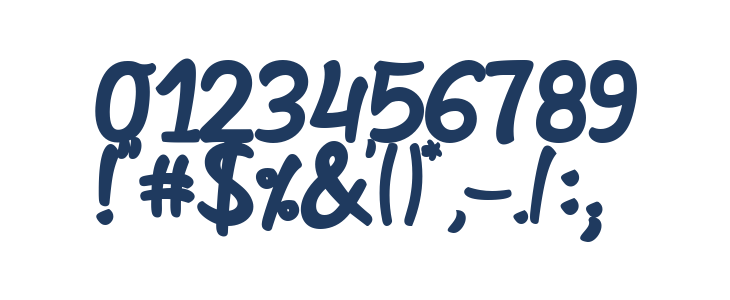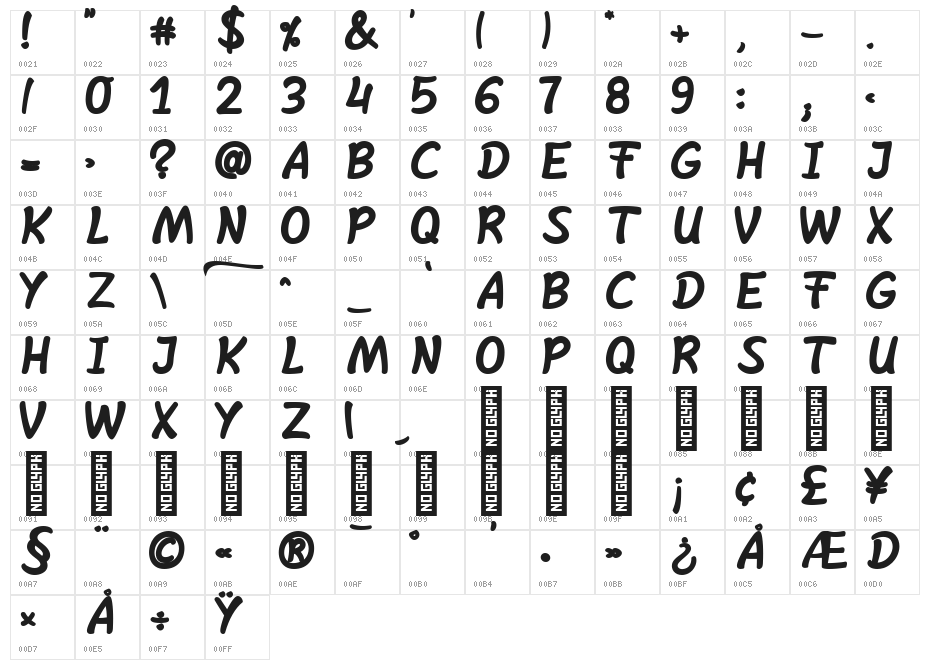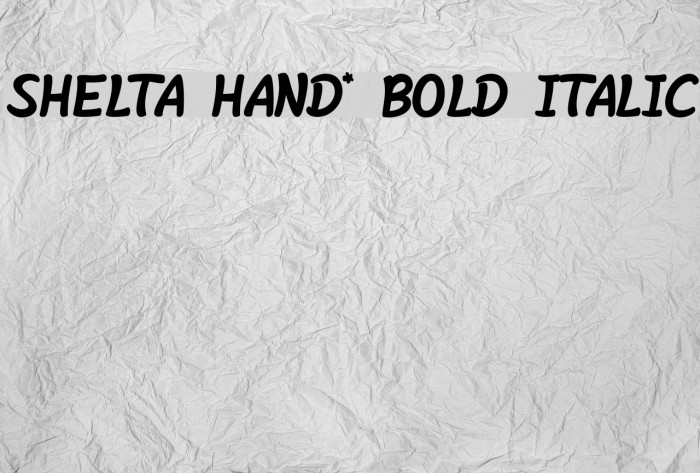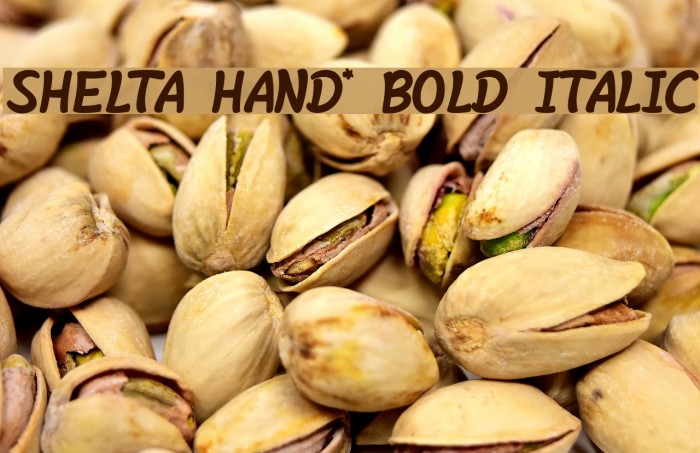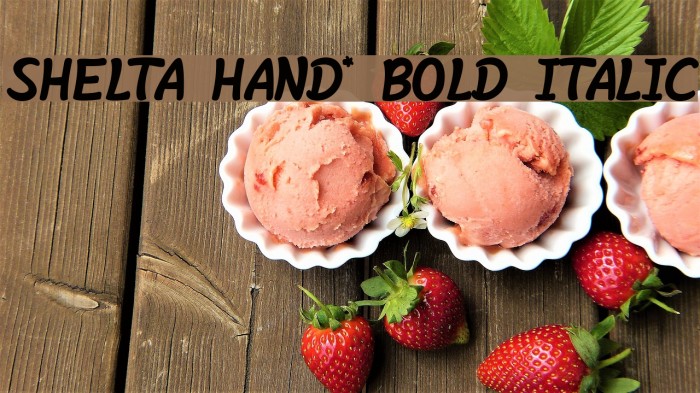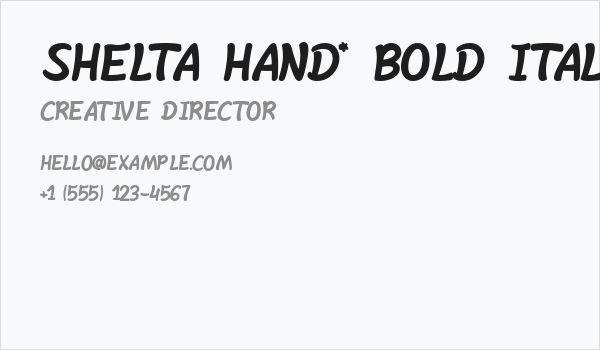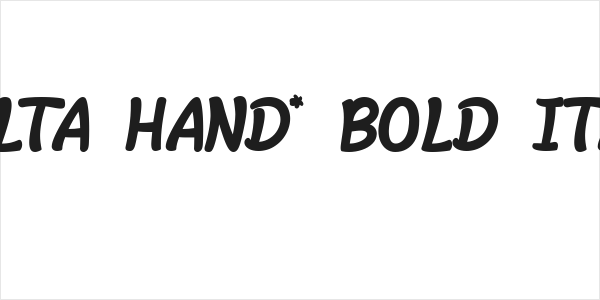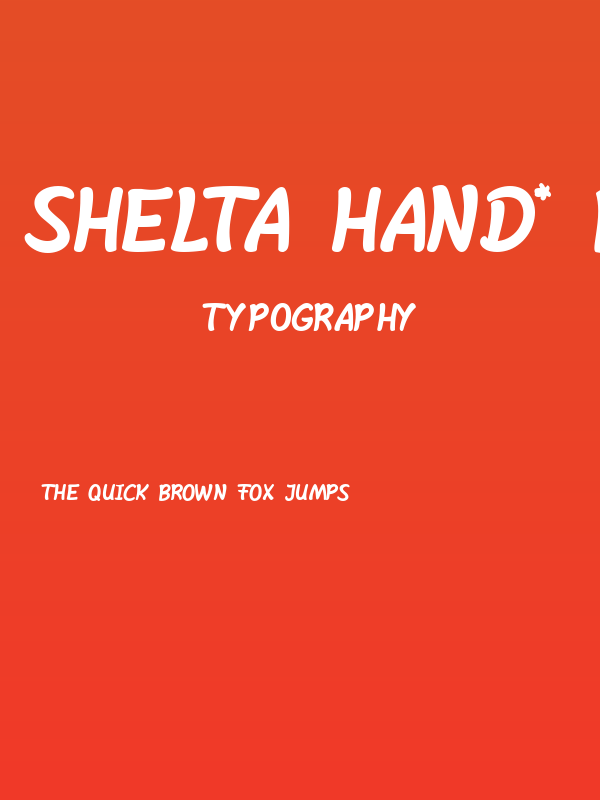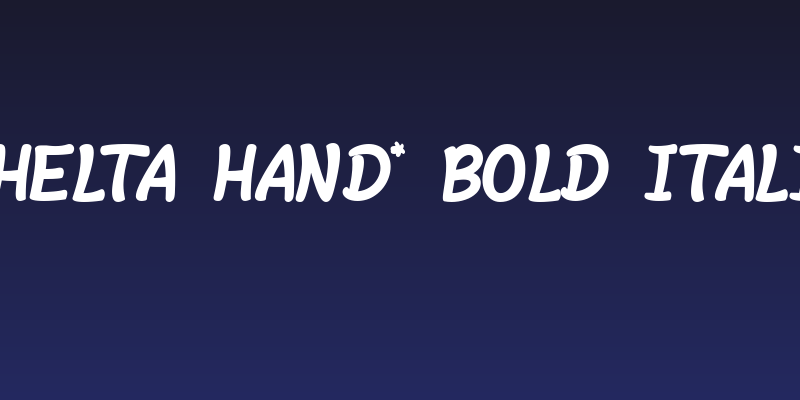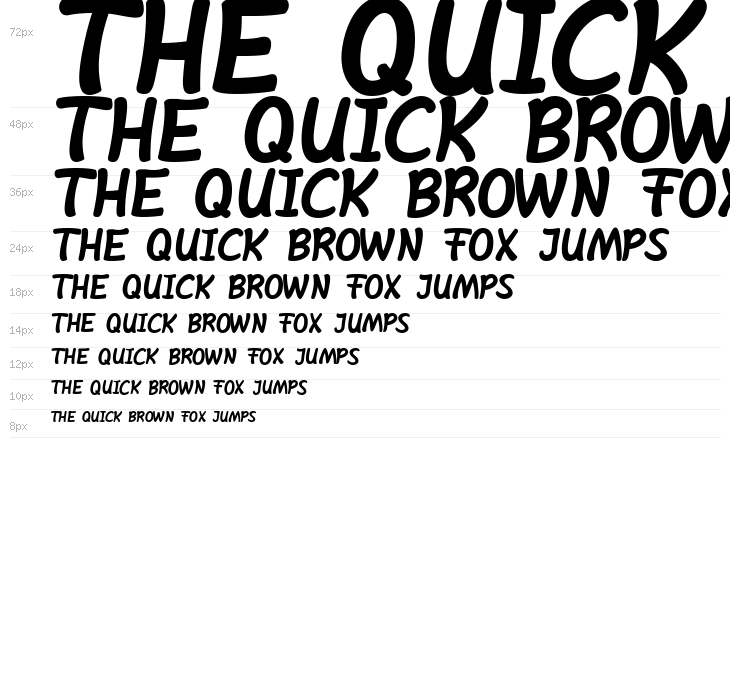
Shelta Hand* Bold Italic Font
Shelta Hand* Bold Italic Description
This font features a bold and italic style with a handwritten appearance, characterized by smooth, flowing strokes that give it a casual yet dynamic feel. The letters are slightly slanted, enhancing the italic effect, and the boldness of the strokes ensures strong visibility and impact. The characters have a playful and informal vibe, making them suitable for creative and expressive designs. The numbers and special characters maintain the same stylistic approach, ensuring consistency across all elements.
| Proposed Projects | Ideal for greeting cards, playful branding, children's books, and creative posters. |